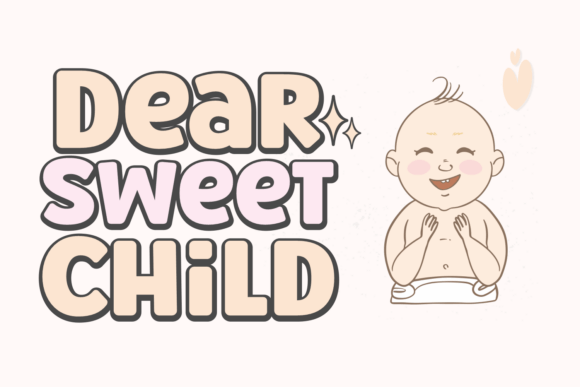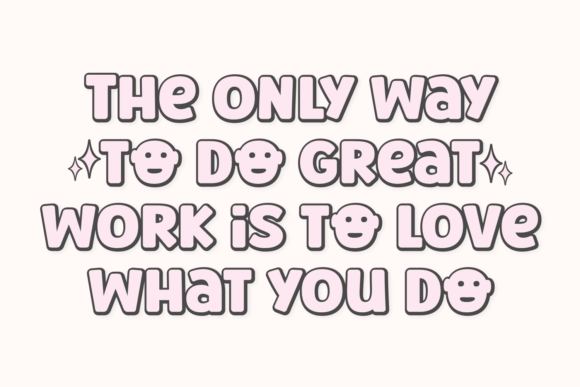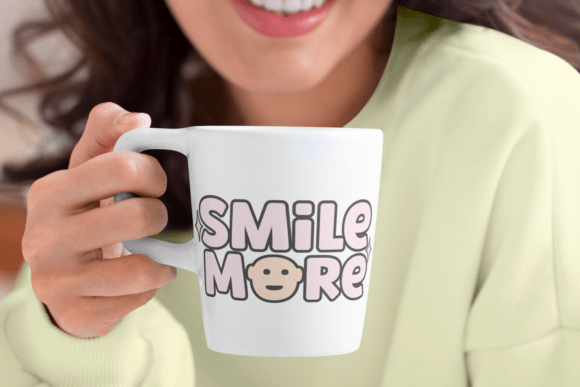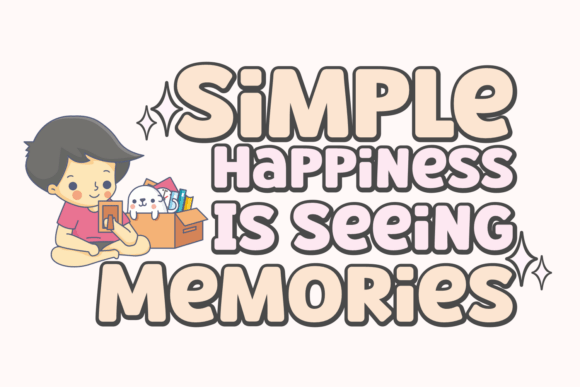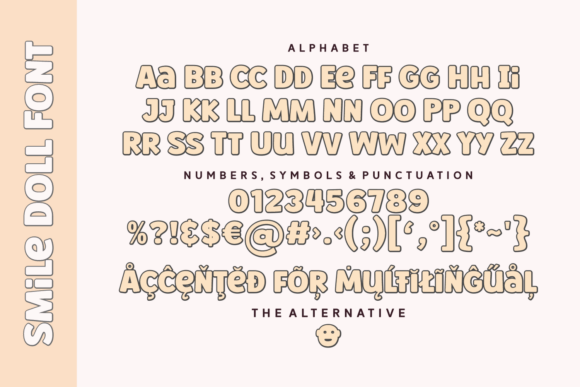
Introduction to Smile Doll Font Font
Fonts play a crucial role in design, and the Smile Doll Font font is a typeface that brings both character and versatility to any project. Whether you’re working on a branding project, a website, or a print design, the Smile Doll Font font offers a unique style that can elevate your work.
Immerse yourself in the charming allure of the βSmile Dollβ display font.
This bold and playful typeface offers a whimsical touch with its authentic, hand-drawn look that is both groovy and fanciful Its cartoon style promises to bring a smile to your face, rendering it the perfect choice for crafting captivating eye-catchers.
Key Features of Smile Doll Font Font
Why Choose Smile Doll Font Font?
The Smile Doll Font font is more than just a typeface β it’s a design tool that helps you communicate your message with style and clarity. Its unique character set and versatile design make it suitable for a wide range of applications, from elegant invitations to bold headlines.
With its carefully crafted letterforms and balanced proportions, the Smile Doll Font font ensures readability and visual appeal across all mediums.
What makes Smile Doll Font font special?
The Smile Doll Font font stands out with its unique design, exceptional readability, and versatility across various design applications.